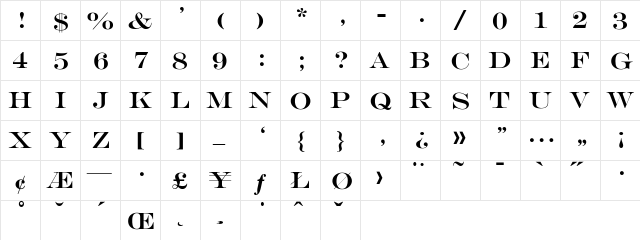
MEngravers-SizeOne Regular
Design Context for MEngravers-SizeOne Typeface
MEngravers-SizeOne offers clean, dependable letterforms without strong stylistic allegiance, making it a practical choice for designers who need flexibility.
Pro Tip: Use MEngravers-SizeOne in both headline and body roles to test its range before committing to a single application.